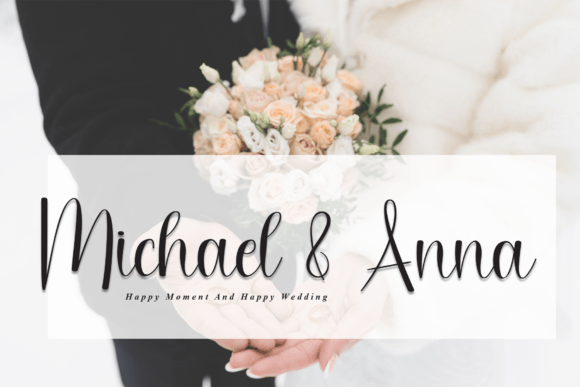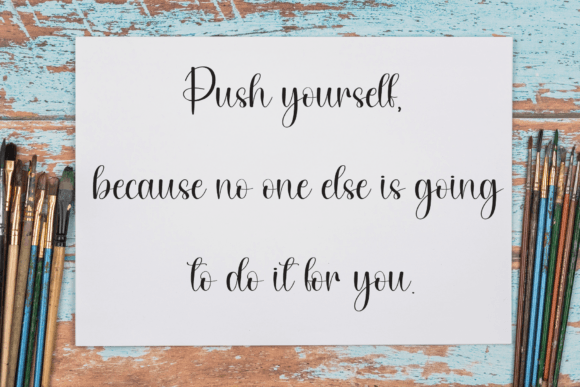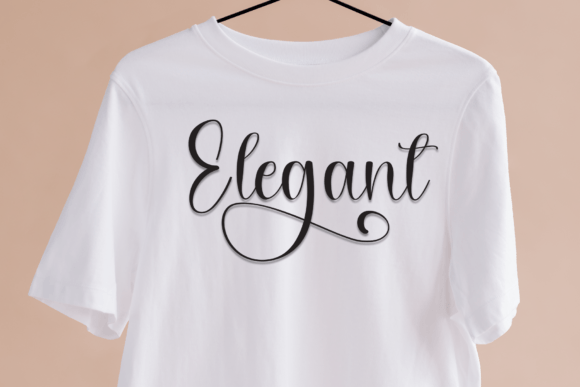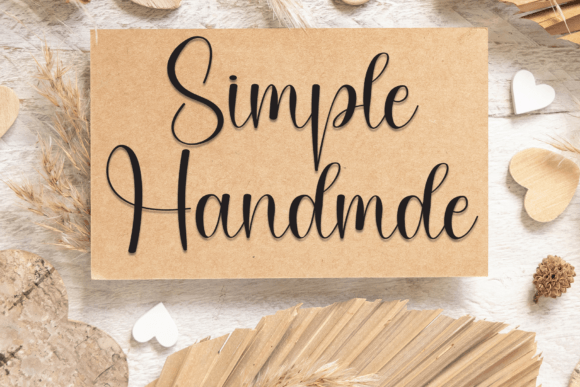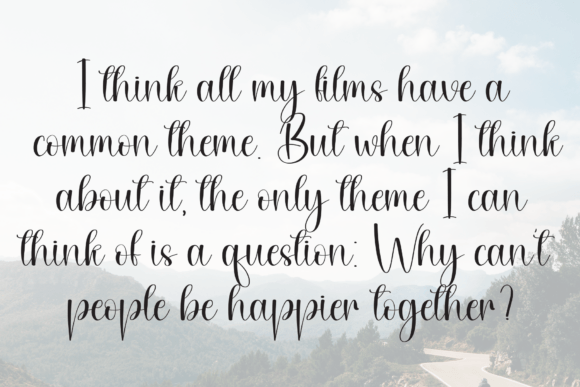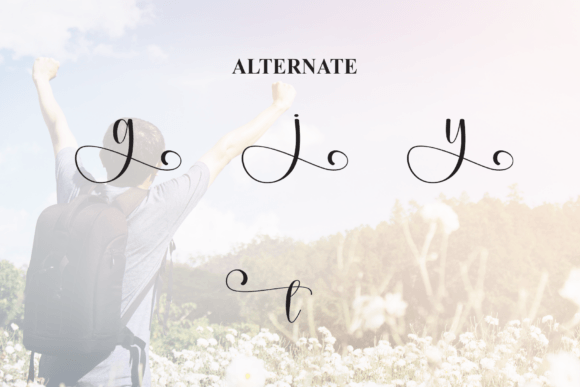
Introducing Delight Font: The Charming Handwritten Display Font
Are you looking for a font that can add a touch of sweetness and playfulness to your designs? Look no further than Delight Font, a charming handwritten display font that is sure to capture your heart. With its sugary sweetness and friendly demeanor, this typeface is perfect for designers and crafters who want to add a personal touch to their projects.
The Allure of Delight Font
Delight Font is a unique and quirky typeface that is sure to stand out in any design. Its handwritten charm and sugary sweetness make it perfect for projects that require a touch of whimsy and playfulness. Whether you’re designing wedding invitations, greeting cards, or any other type of project, Delight Font is sure to add an enchanting edge that will make your designs shine.
Delight Font is especially perfect for wedding invitations and greeting cards. Its love-filled touch and cheerful demeanor make it ideal for projects that require a personal and heartfelt touch. Imagine sending out wedding invitations that are not only beautiful but also convey the love and joy of the special day. With Delight Font, you can create stunning invitations that will set the tone for a memorable and unforgettable wedding celebration.
Adding Playfulness to Your Designs
Delight Font is not just limited to wedding invitations and greeting cards. This versatile font can be used in any design that requires a touch of playfulness and whimsy. Whether you’re designing a logo, a brochure, or a social media graphic, Delight Font is sure to add a fun and youthful edge to your project. Its friendly demeanor and sugary sweetness make it perfect for brands that want to convey a sense of approachability and friendliness.
Handcrafting Meaningful Moments
One of the best things about Delight Font is its ability to handcraft meaningful moments with every letter typed. This font is not just a collection of letters and numbers; it’s a way to add a personal touch to your designs. With Delight Font, you can create unique and customized projects that reflect your personality and style. Whether you’re a designer, crafter, or DIY enthusiast, Delight Font is sure to inspire you to create something truly special.
Key Features of Delight Font
- Handwritten display font: Delight Font is a unique handwritten display font that is perfect for adding a personal touch to your designs.
- Sugary sweetness and friendly demeanor: This font has a sugary sweetness and friendly demeanor that makes it perfect for projects that require a touch of whimsy and playfulness.
- Perfect for wedding invitations and greeting cards: Delight Font is especially perfect for wedding invitations and greeting cards that require a love-filled touch and cheerful demeanor.
- Versatile and playful: This font can be used in any design that requires a touch of playfulness and whimsy, from logos to brochures to social media graphics.
- Handcrafting meaningful moments: Delight Font allows you to handcraft meaningful moments with every letter typed, making it perfect for designers, crafters, and DIY enthusiasts.
In conclusion, Delight Font is a charming handwritten display font that is sure to capture your heart. With its sugary sweetness and friendly demeanor, this typeface is perfect for designers and crafters who want to add a personal touch to their projects. Whether you’re designing wedding invitations, greeting cards, or any other type of project, Delight Font is sure to add an enchanting edge that will make your designs shine. So why wait? Experience the magic of handcrafting meaningful moments with Delight Font today!
Design Inspiration
Still looking for design inspiration? Check out some of the amazing projects created with Delight Font:
- Wedding invitations: Create stunning wedding invitations that set the tone for a memorable and unforgettable wedding celebration.
- Greeting cards: Design beautiful greeting cards that convey your love and appreciation for friends and family.
- Logos and branding: Use Delight Font to create fun and youthful logos and branding materials that convey a sense of approachability and friendliness.
- What is Delight Font?: Delight Font is a charming handwritten display font that is perfect for adding a personal touch to your designs.